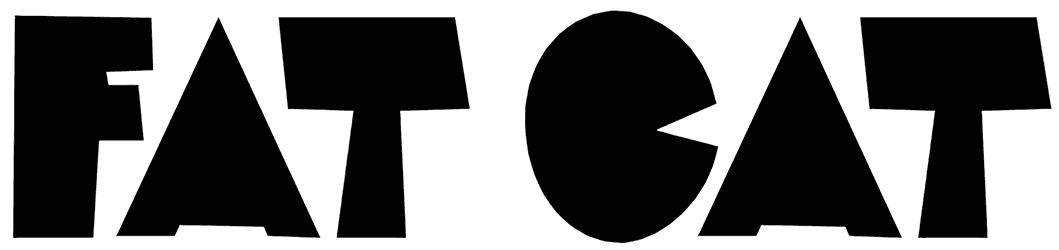
Fat Cat Font
If you are running a project where details are not important, Fat Cat can be your choice. This font is not dissimilar to thick and heavy layers, and as a result, it can work well for sports designs.
This cartoon font provides only a shade of letters and can make any viewer feel playful. Since lowercase letters are not included in this collection, the use of Fat Cat is more common in cover designs, short texts, and titles.